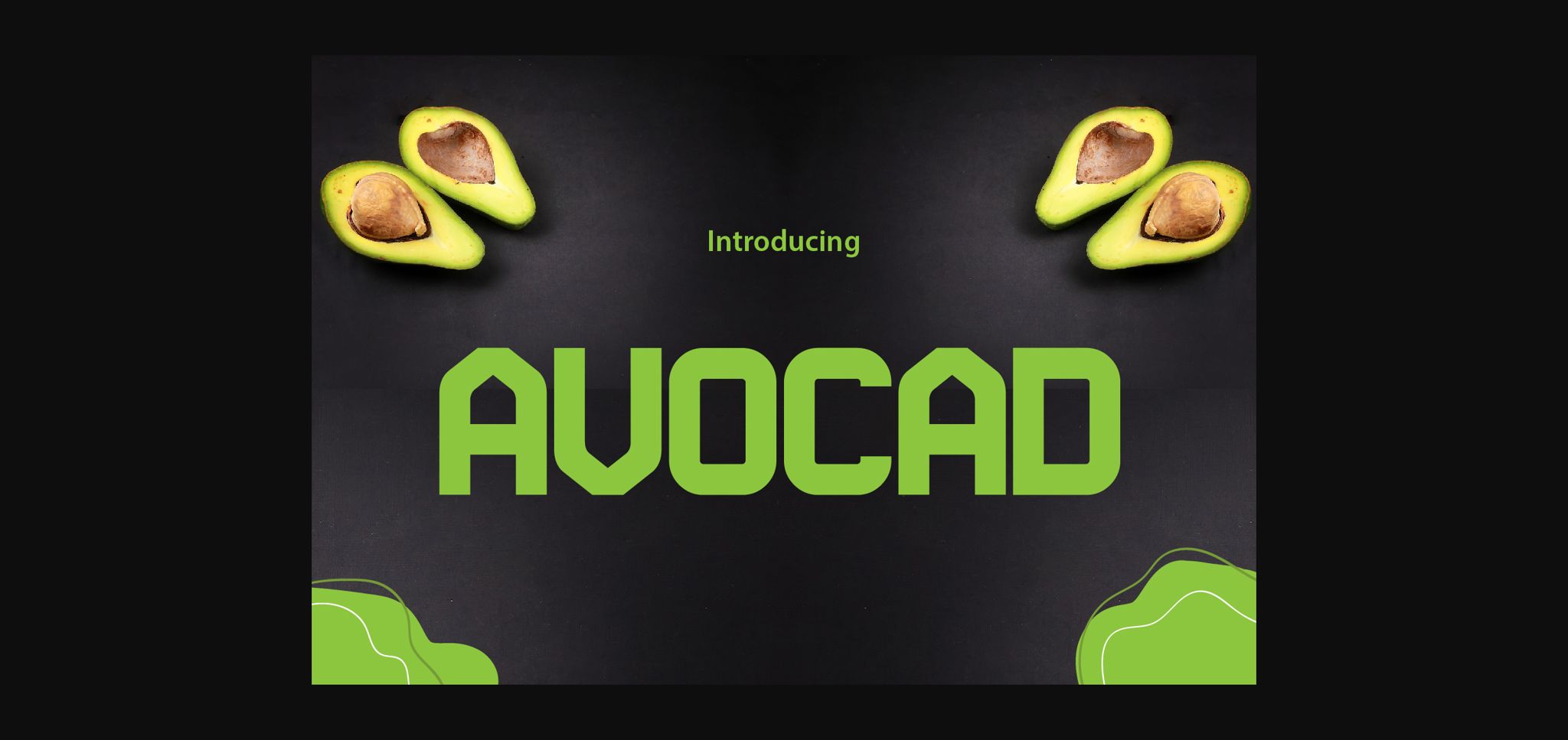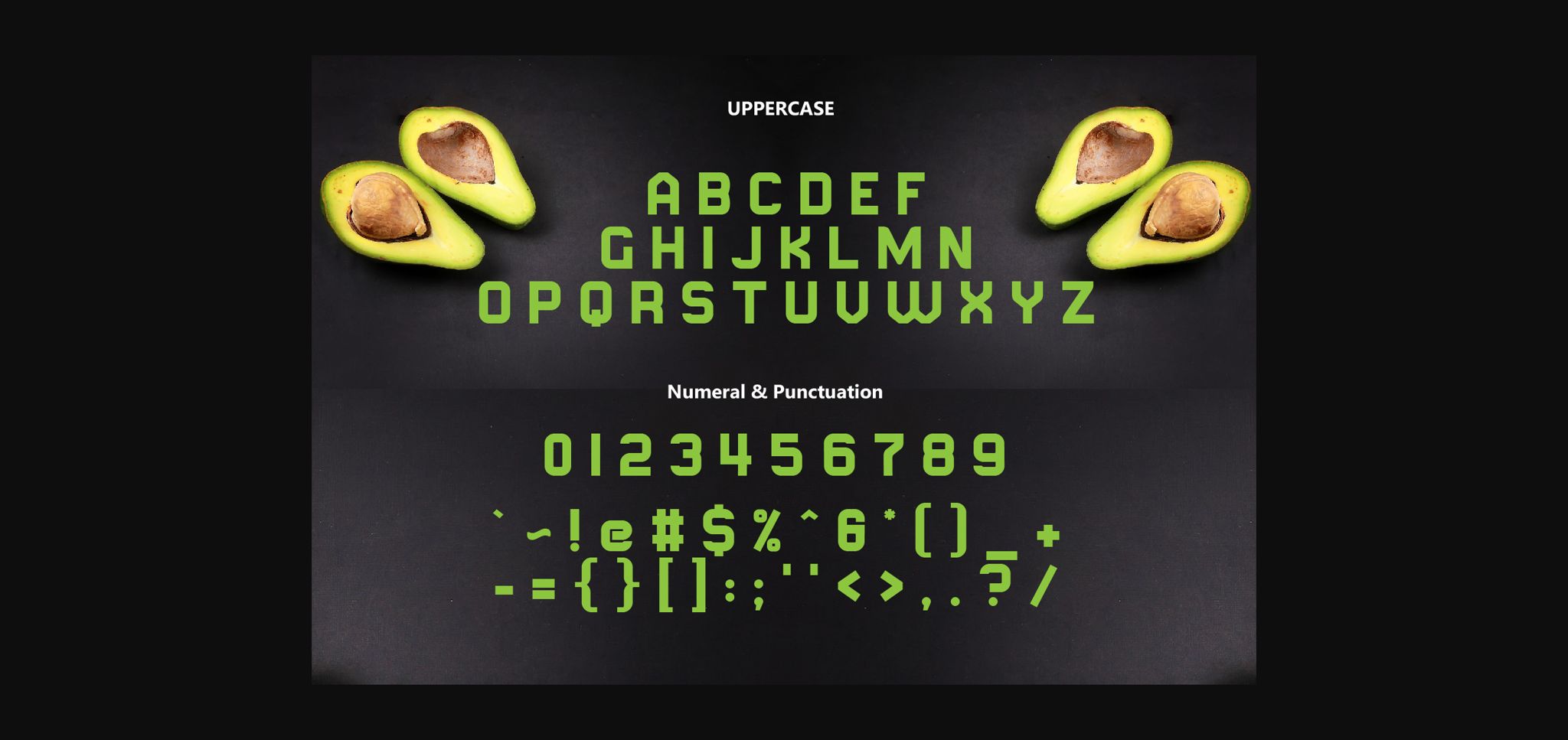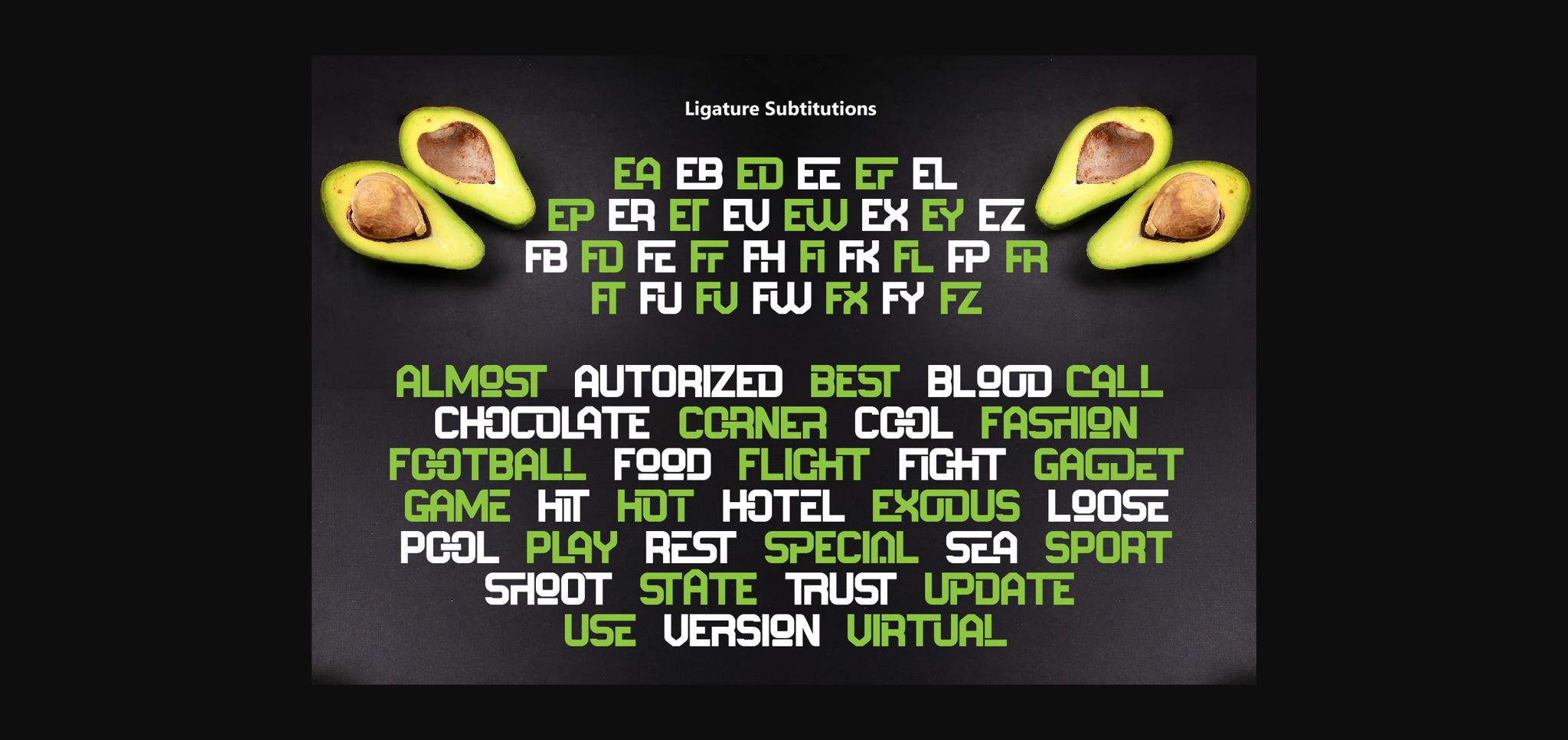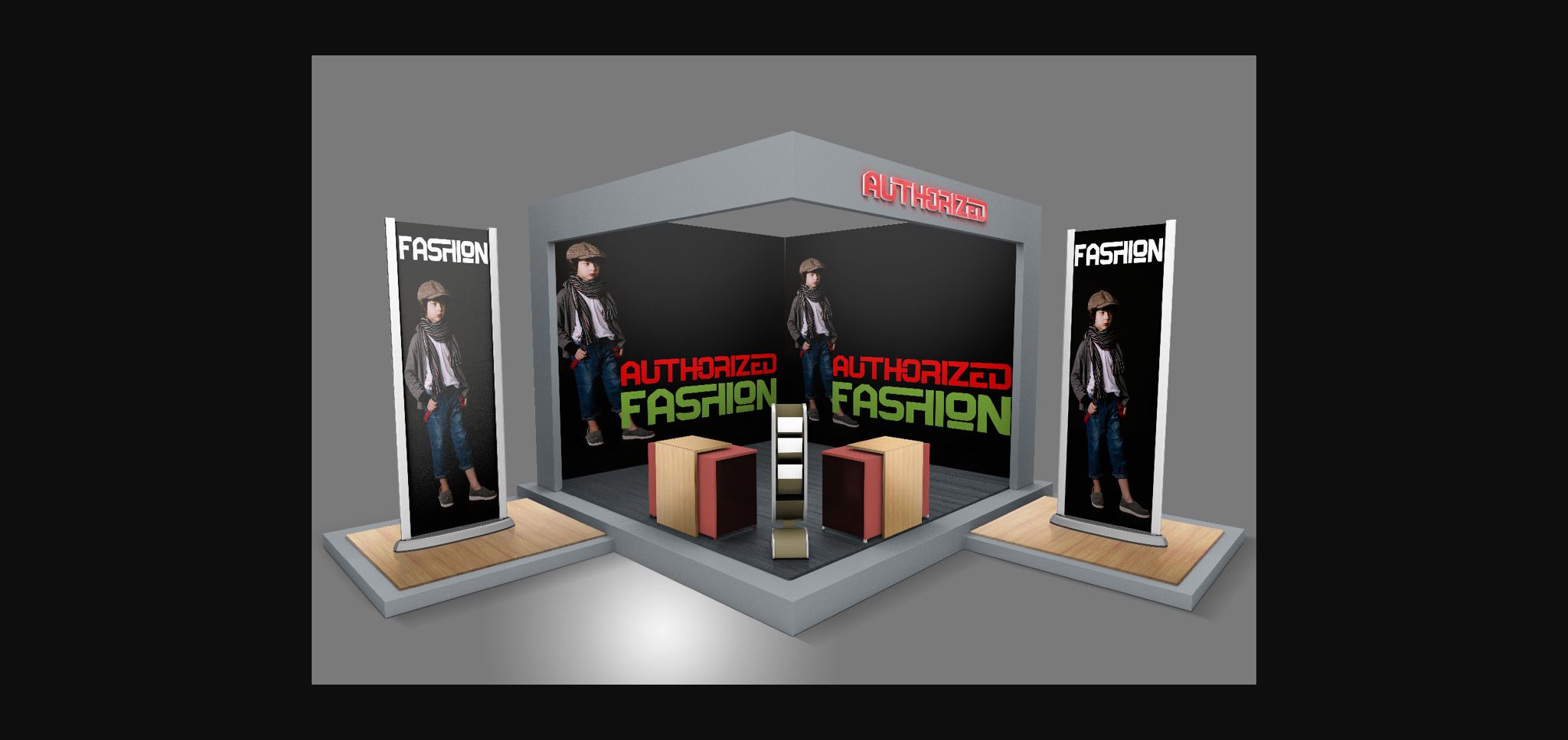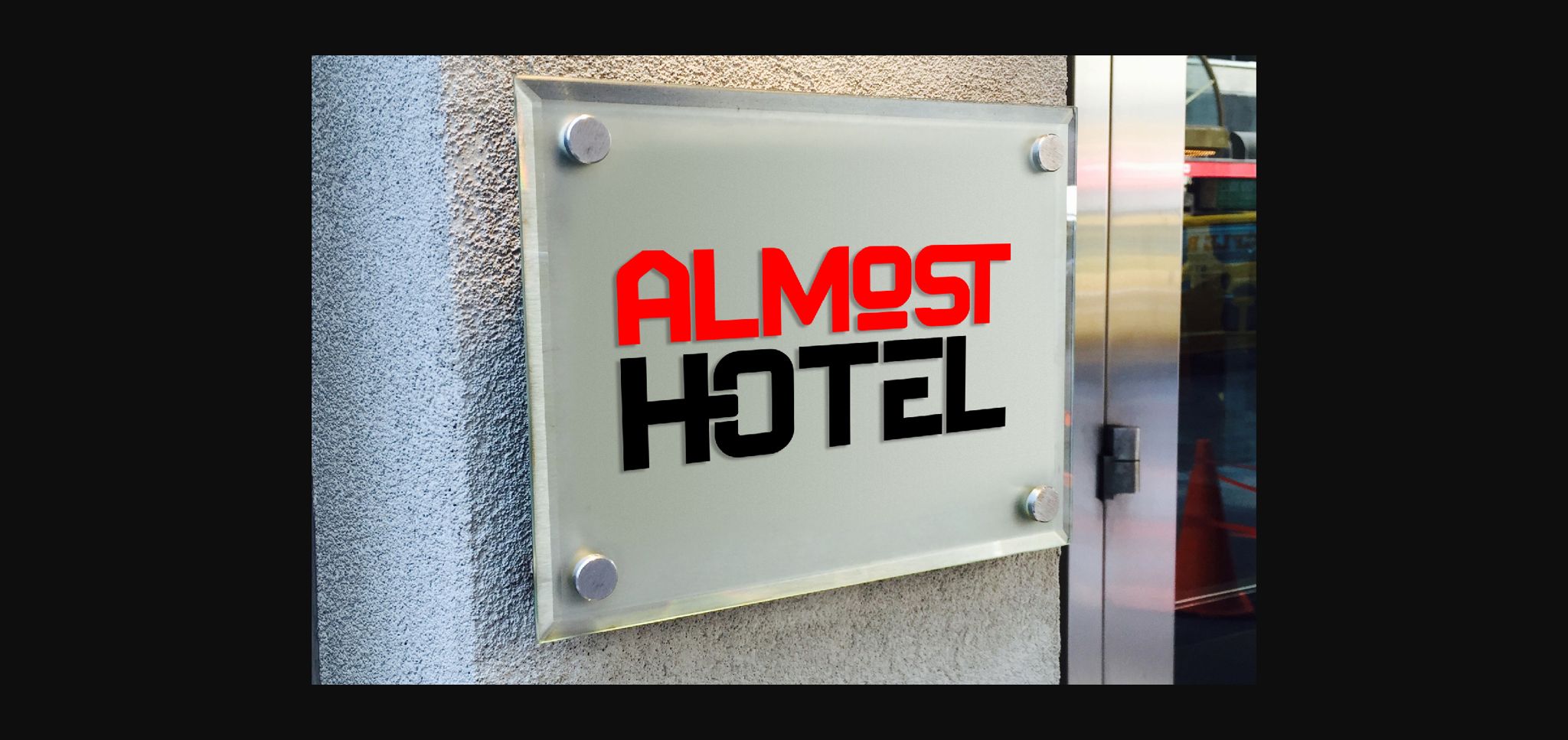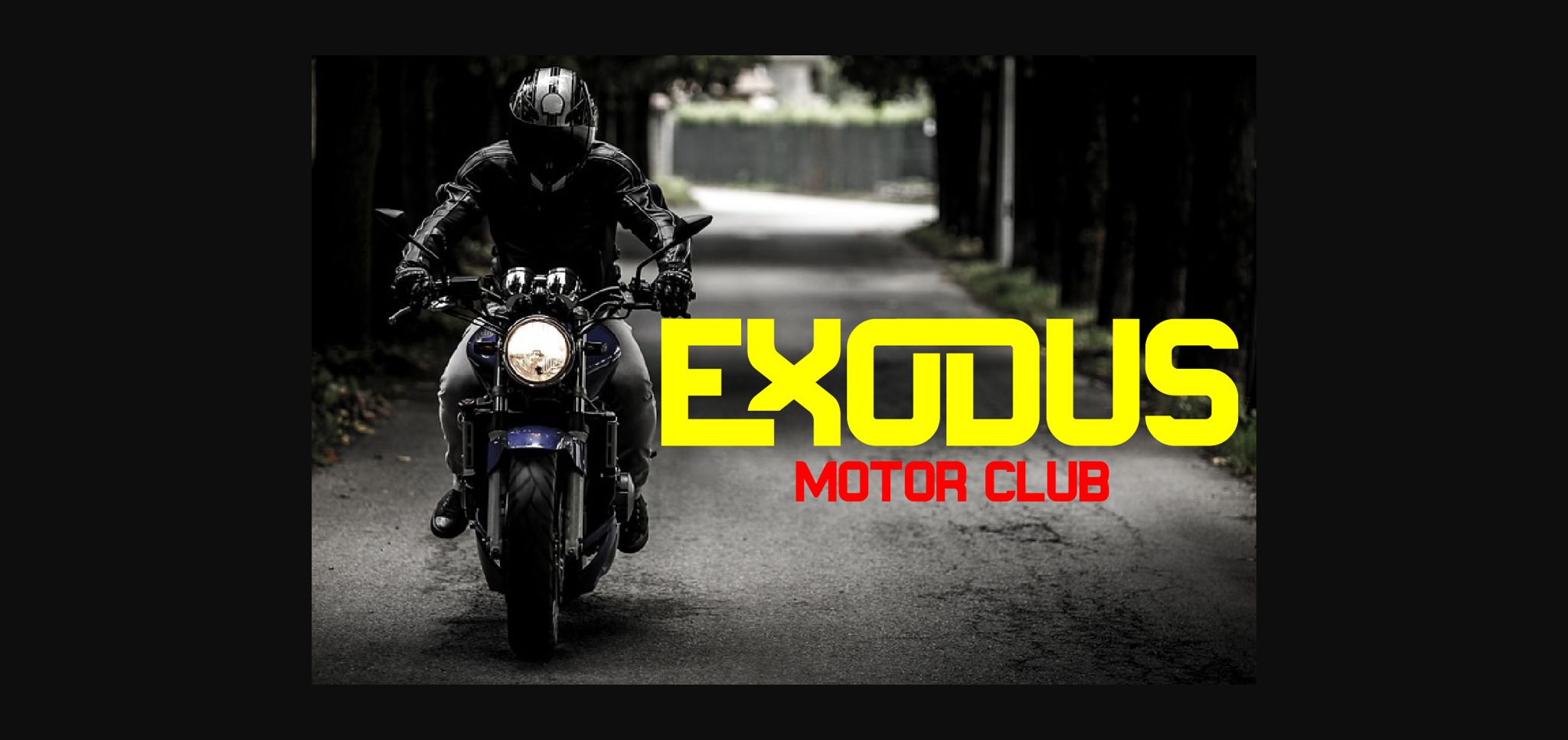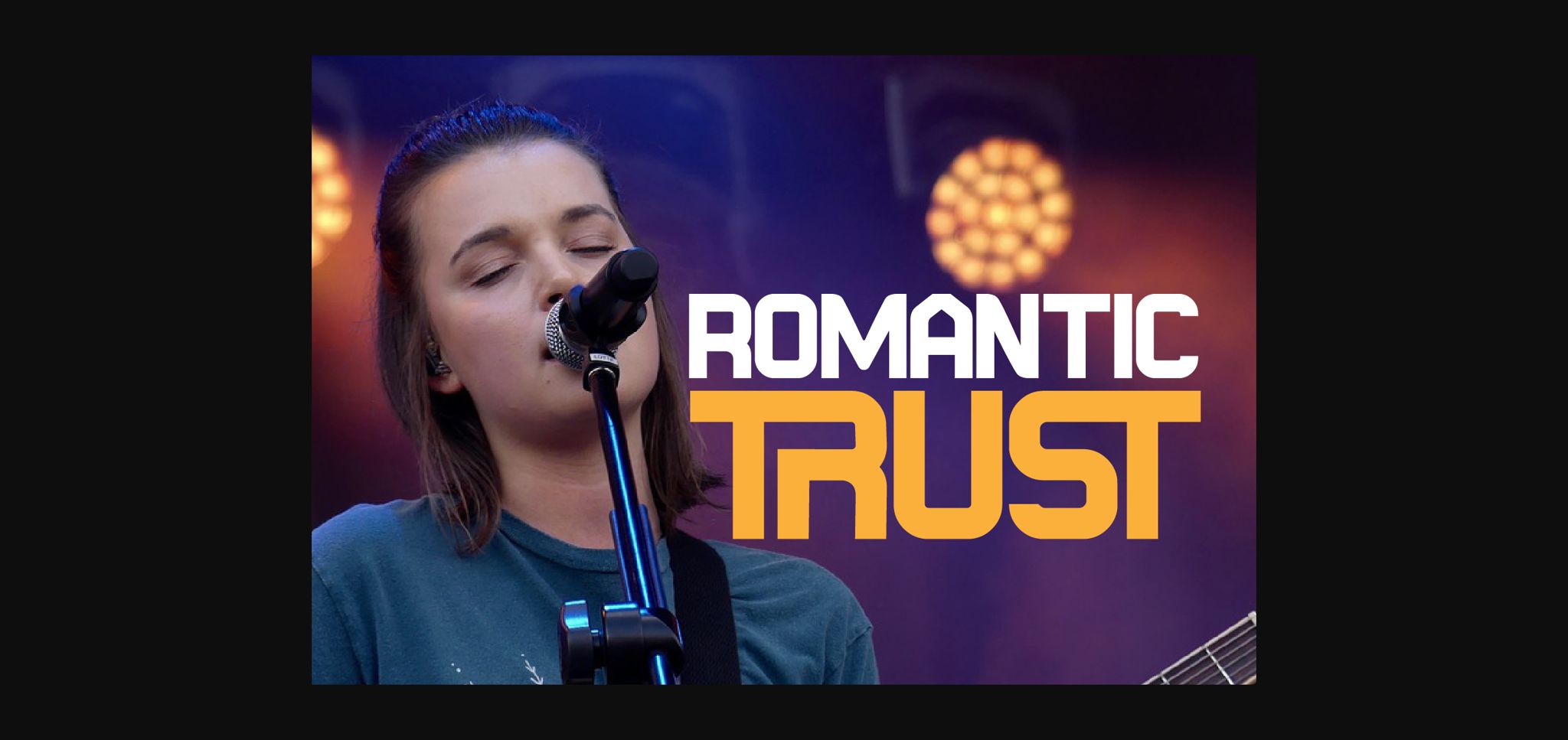
Avocad Font
About Avocad Font
Avocad is a simple and casual sans serif font with an undeniably clean feel. With its neat and beautiful arrangement of letters, this typeface will look outstanding in both formal and non-formal designs.